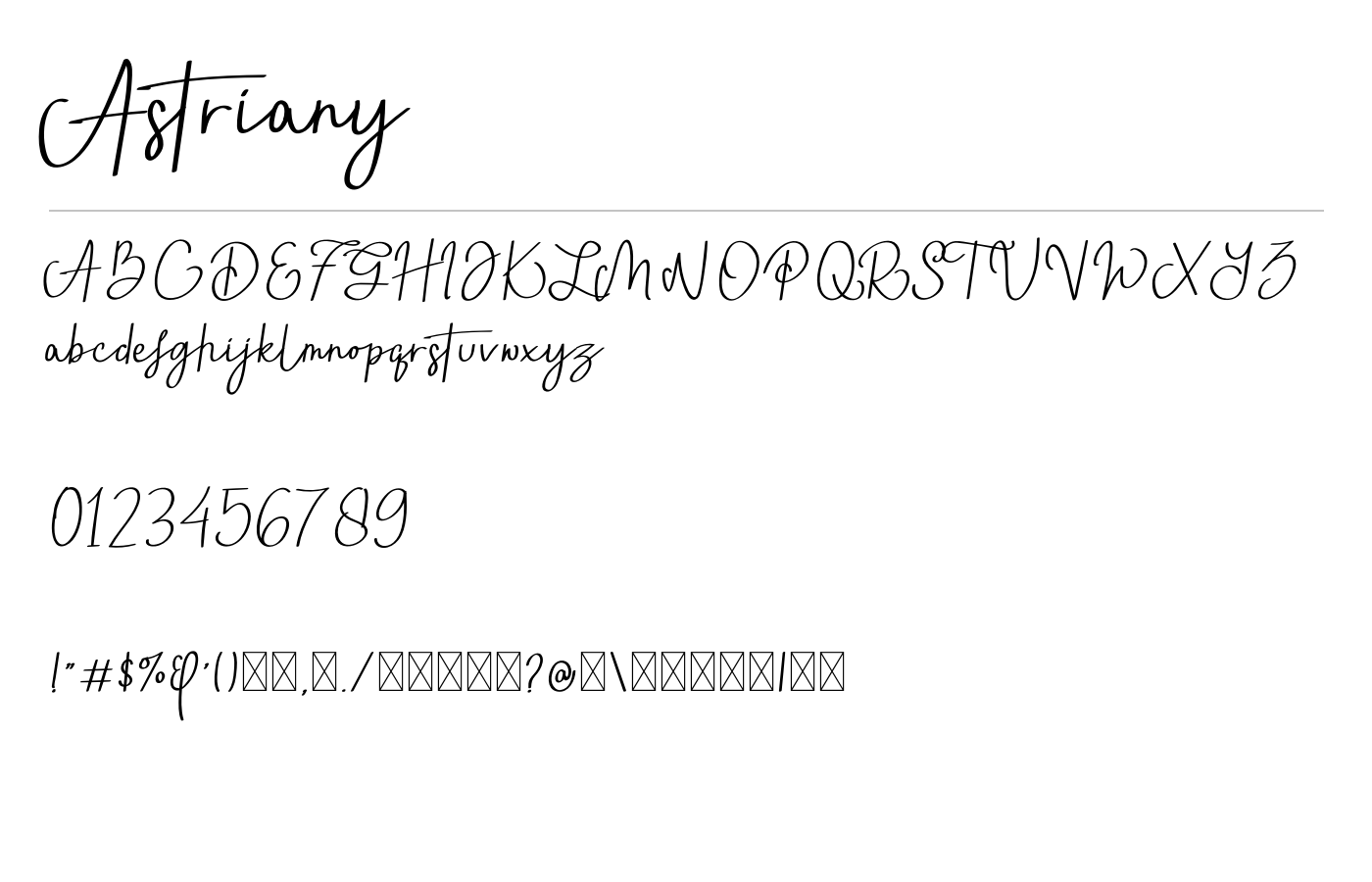
Astriany is an elegant handwritten script font characterized by its slender, flowing strokes and delicate, natural curves. Its light weight and graceful letterforms create a sophisticated yet approachable feel, making it ideal for personal branding, invitations, and stylish editorial use where a touch of refined charm is desired.
Astriany Font
About Astriany Font
| Font family | Astriany Font |